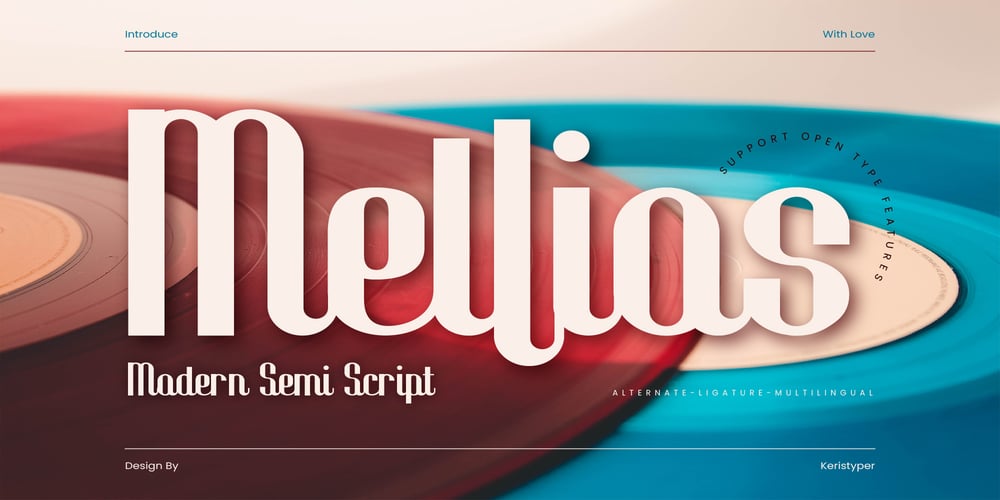
Mellios
Mellios font
Mellios Font Family was designed by Tezar Tantular and published by Keristyper Studio. Mellios contains 1 styles and family package options. Mellios is a modern semi-script font that combines elegant calligraphy with a contemporary twist. With its smooth and flowing curves, Mellios is perfect for adding a touch of sophistication to your designs. Whether you’re creating invitations, logos, or social media graphics, Mellios is sure to impress. Its versatility makes it suitable for a wide range of projects and purposes, from branding to editorial design. With Mellios, you can elevate your designs and create a memorable impression.Featured: Standard, Uppercase & Lowercase Numeral & Punctuation Multilingual : ä ö ü Ä Ö Ü ß ¿ ¡ Alternate & Ligature PUA encoded We recommend programs that support the OpenType feature and the Glyphs panel such as Adobe applications or Corel Draw, so you can use all the variations of the glyphs.Hope you enjoy our fonts!